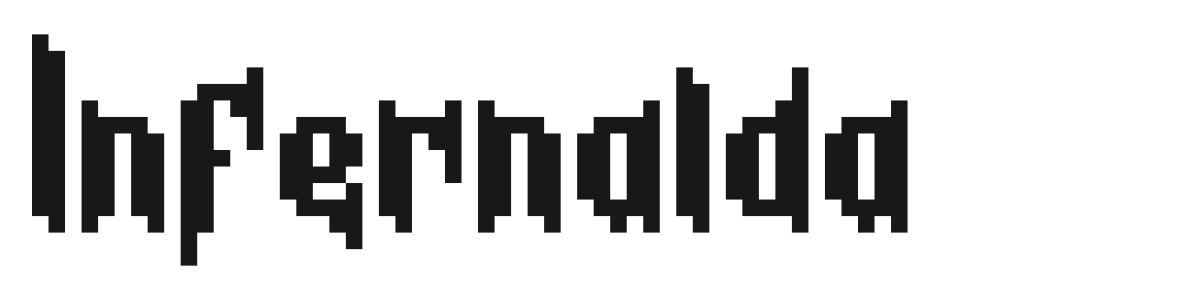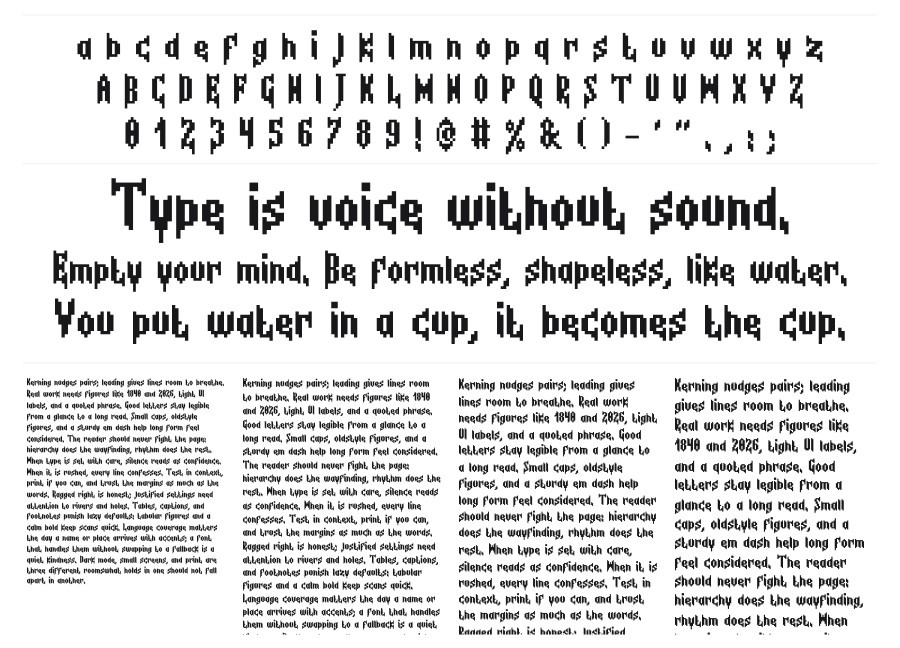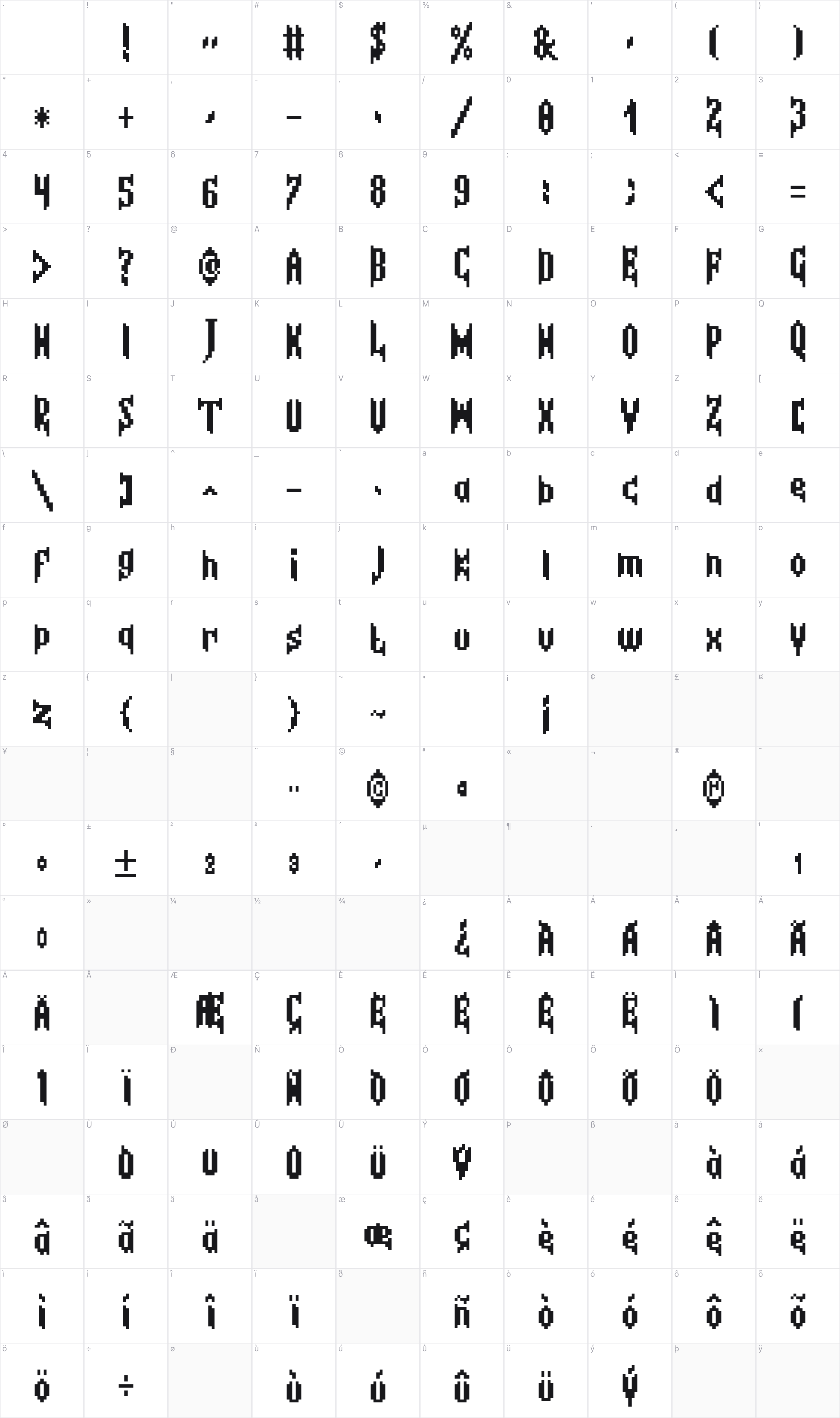
Infernalda
Infernalda is a bold pixel-art font that fuses blackletter drama with retro bitmap construction. Every character is built from square pixel blocks, giving the design its jagged, lo-fi menace, while the irregular heights add a chaotic energy that feels at home in gaming titles, horror branding, or underground music visuals. It walks the line between gothic seriousness and pixel nostalgia.